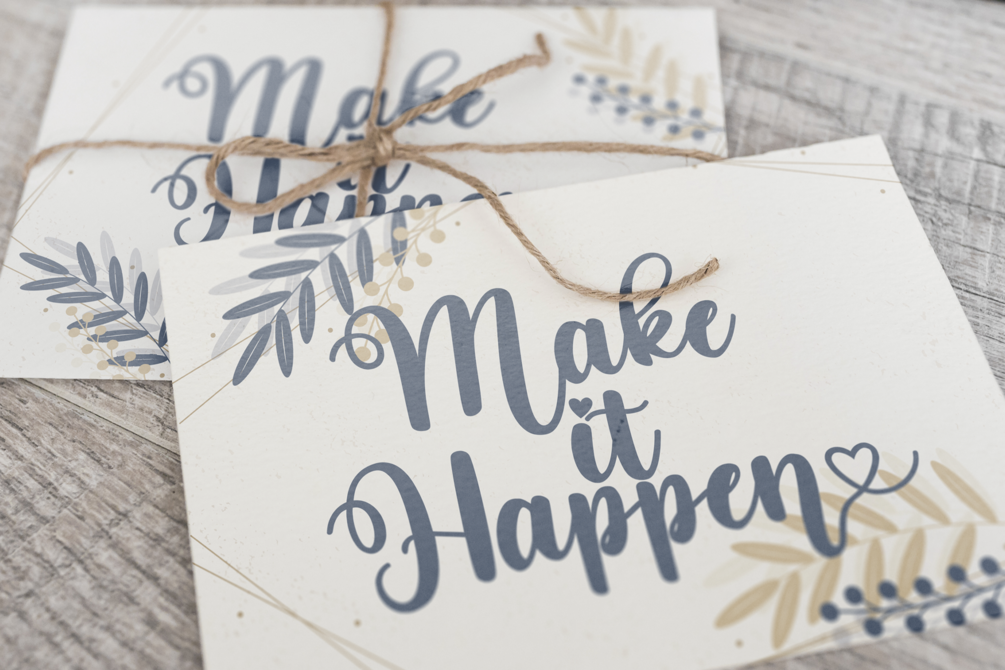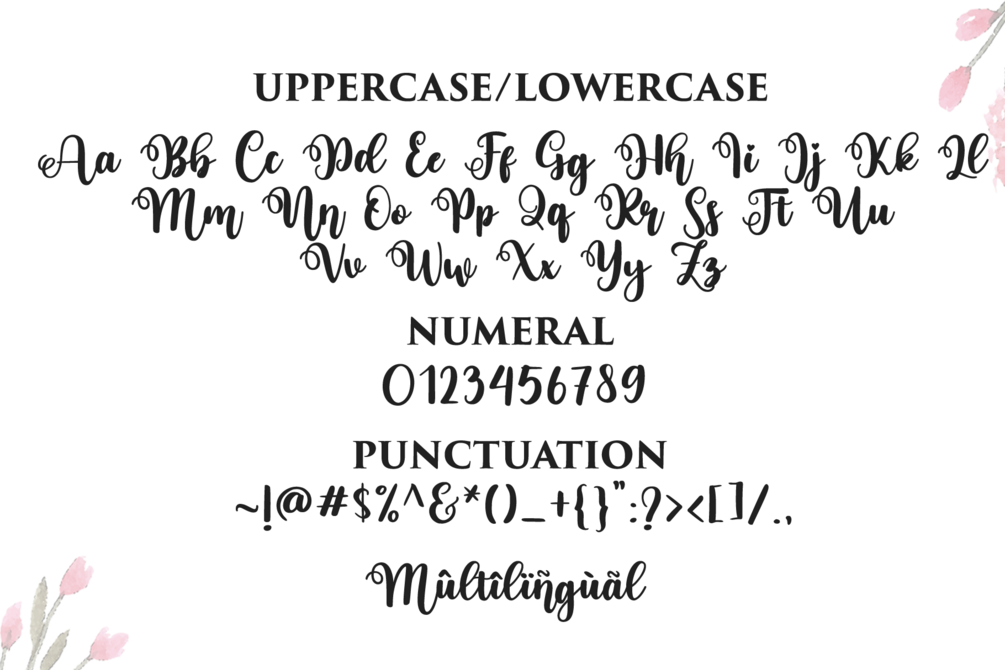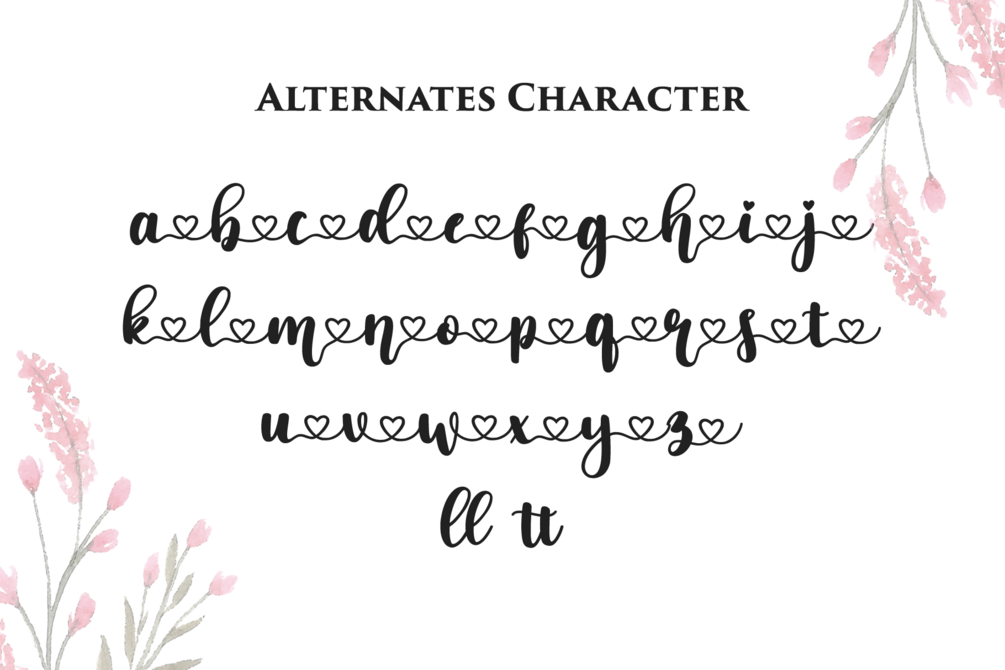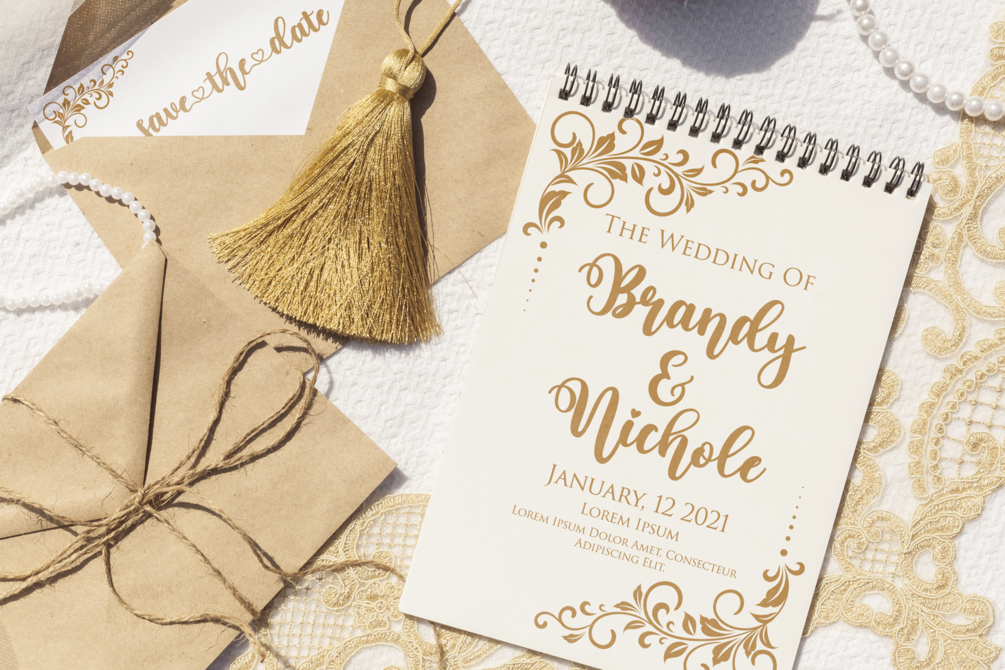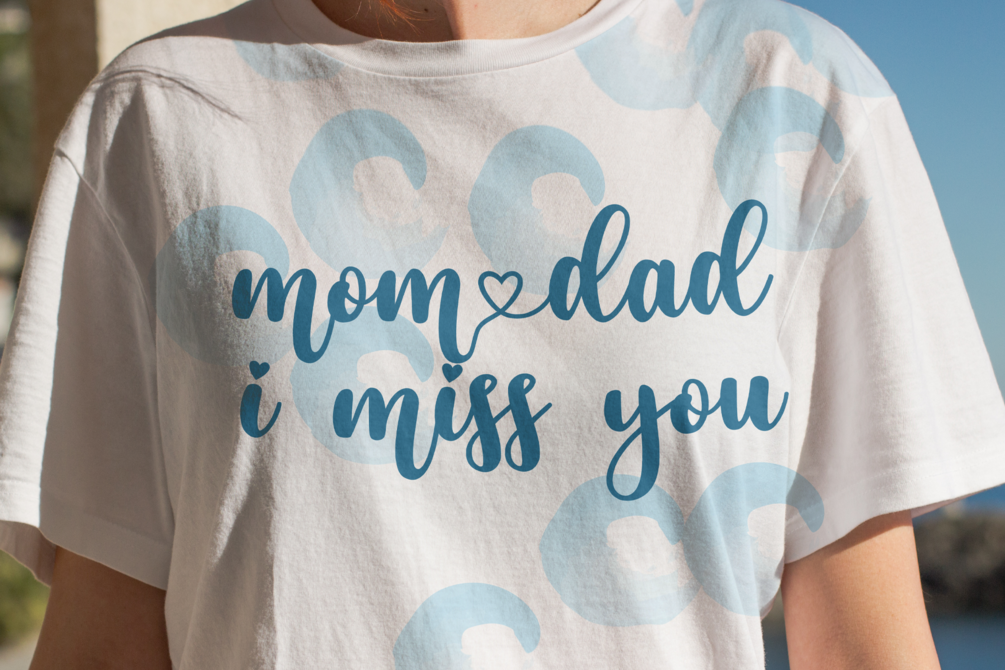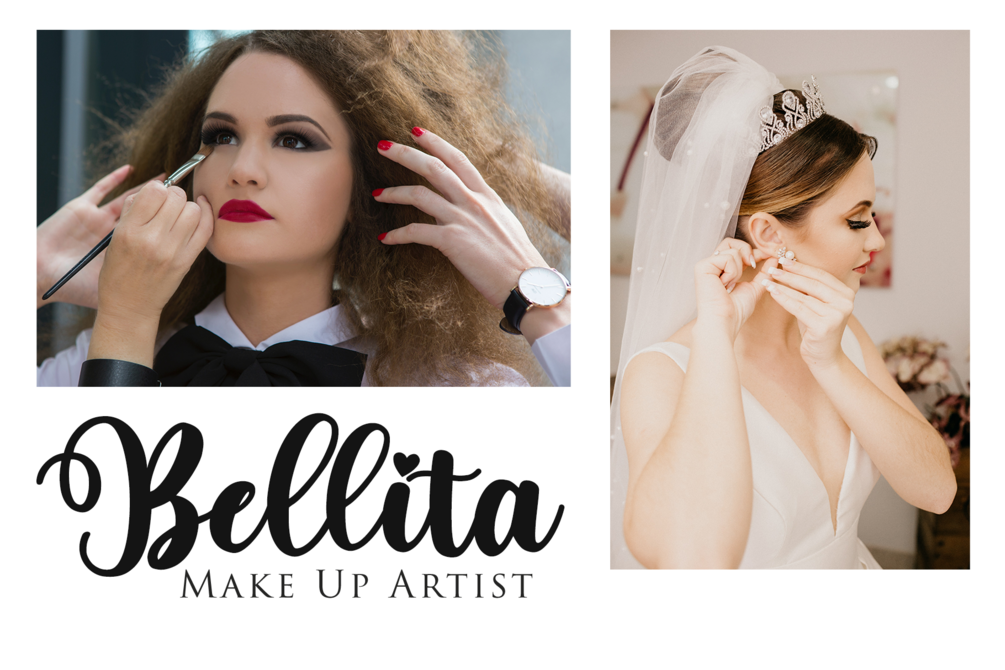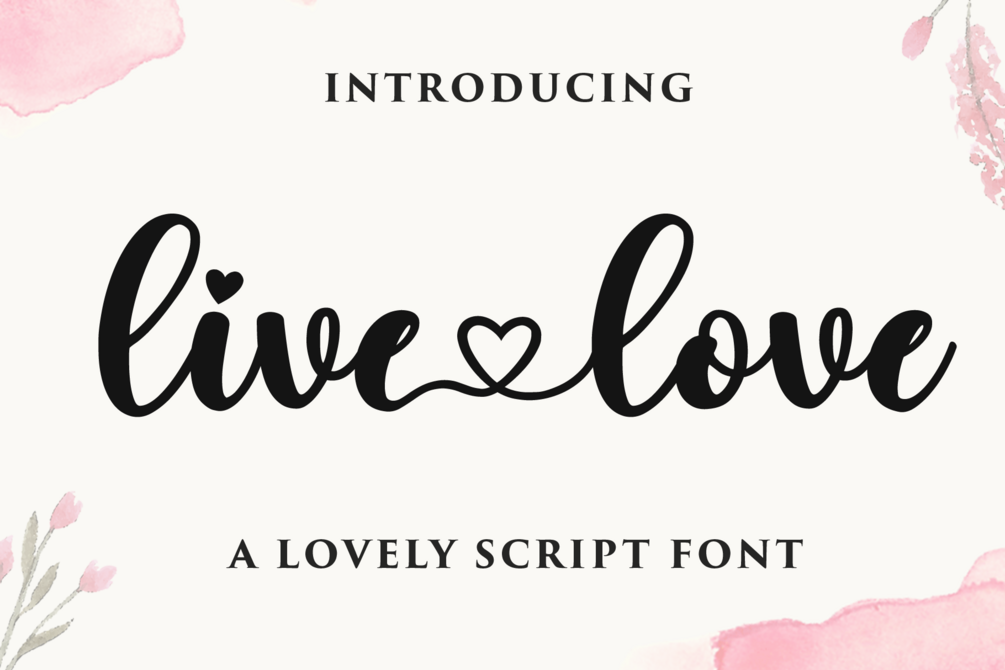
Live Love β Magical Handwritten Font with Elegant & Romantic Charm
Live Love is a magical handwritten script font carefully crafted with a touch of pure elegance and romantic flow. Perfect for Instagram quotes, Pinterest graphics, social media posts, wedding signage, love letters, DIY projects, Cricut crafts, greeting cards, branding, logos, and invitations β this font turns every creative idea into a true piece of art.
- Elegant Ligatures
- Beautiful Alternate Characters
- Full Multilingual Support